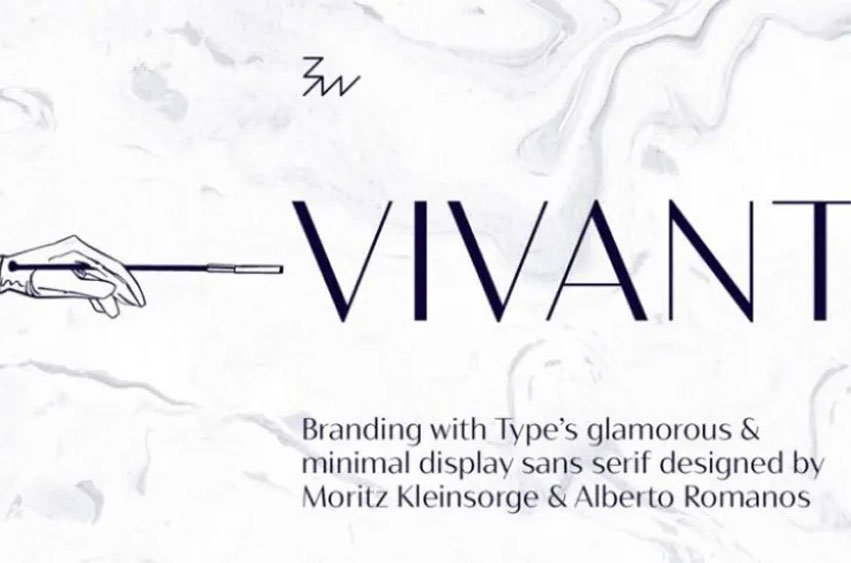
Vivant Font
Vivant Font is a layered sans serif family designed by Moritz Kleinsorge & Alberto Romanos. Bw Vivant marries the visual appeal of deeply modulated serif typefaces with the minimalism of modern, geometric sans serif designs. It strips away any accessory element in the hunt for the cleanest shapes.
High contrast and variable fabulously elegant and glamorous—the art-deco with a minimal approach; the classic expressed in a contemporary way. It comes in 7 weights. The ‘thins’ are the same in all the styles.
It supports all European Latin languages and it includes OpenType features such as several discretionary ligatures, stylistic sets, old style figures or case sensitive forms.